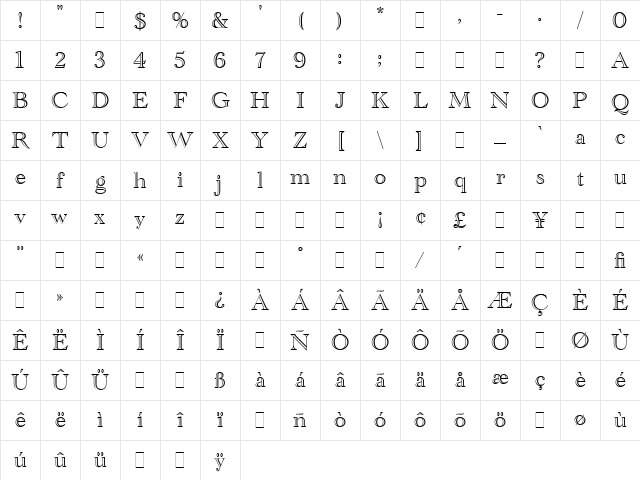
Complete Academy Engraved LET Regular glyph index. Displaying only characters natively supported by Academy Engraved LET Regular font.
Academy Engraved LET is built around its visual character rather than neutral utility - its distinctive forms are designed to make an impression at display sizes.
Font Pairing: Pair with a clean neutral sans-serif for body copy to let Academy Engraved LET's character lead without overwhelming the composition.
Pro Tip: Use Academy Engraved LET exclusively at display sizes - it was designed to be seen, not read at length. Let a neutral companion handle body copy.